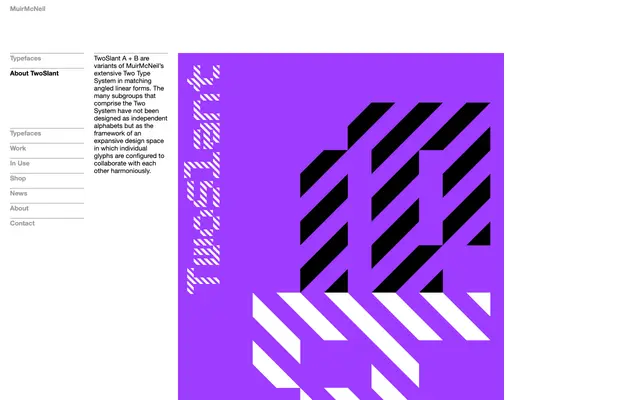
TwoSlant
Part of MuirMcNeil's Two Type System, TwoSlant offers angled linear variants designed to work in concert with the broader modular family.
TwoSlant A and B are members of MuirMcNeil's extensive Two Type System, distinguished by their angled linear construction. Rather than functioning as standalone alphabets, the variants are conceived as components of a larger design space in which glyphs are calibrated to collaborate across subgroups. The result is a tightly systematic typeface suited to applications where structural rigour and geometric precision are central.
TwoSlant sits within MuirMcNeil's modular Two Type System and is built from angled linear forms, placing it firmly in the geometric display category with a system-driven, constructivist character.